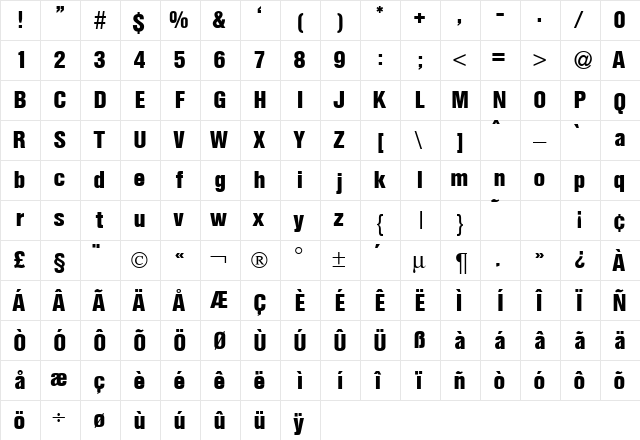
HelbaConDB Normal Font Preview
HelbaConDB Normal
Design Context for HelbaConDB Typeface
HelbaConDB offers clean, dependable letterforms without strong stylistic allegiance, making it a practical choice for designers who need flexibility. Its narrow stance lets it pack a punch even in space-constrained designs.
Pro Tip: Pair HelbaConDB with a font of contrasting weight or personality to build a more expressive typographic hierarchy.